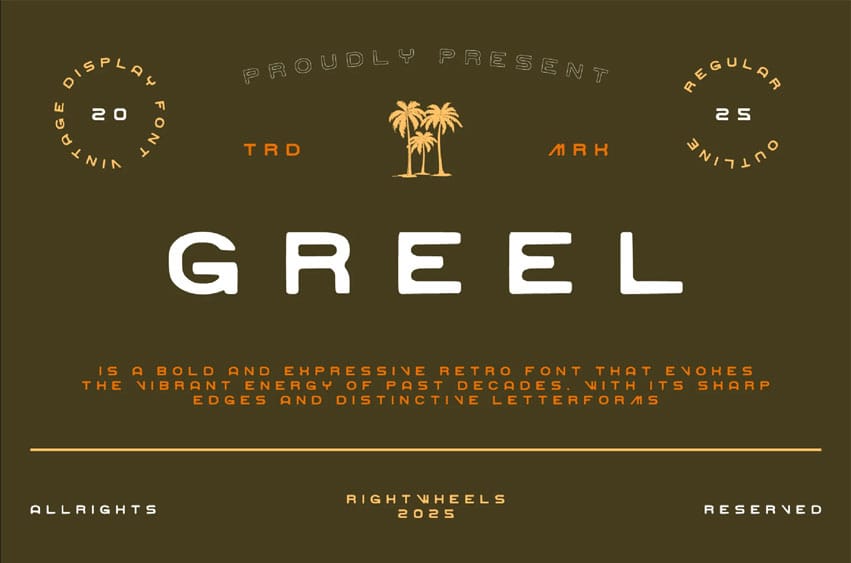
Greel Font is a bold and expressive retro font that evokes the vibrant energy of past decades. With its sharp edges and distinctive letterforms, Greel brings a sense of nostalgia, yet retains a modern touch that makes it versatile for contemporary designs.
Its geometric shapes and clean lines offer a balanced contrast to traditional retro fonts, making it ideal for projects that want to fuse vintage aesthetics with a forward-looking style. Whether used for headlines, logos, or poster designs, Greel stands out with a strong, eye-catching presence that speaks to both the past and the present. Perfect for anything from retro music events to modern branding with a nostalgic flair.